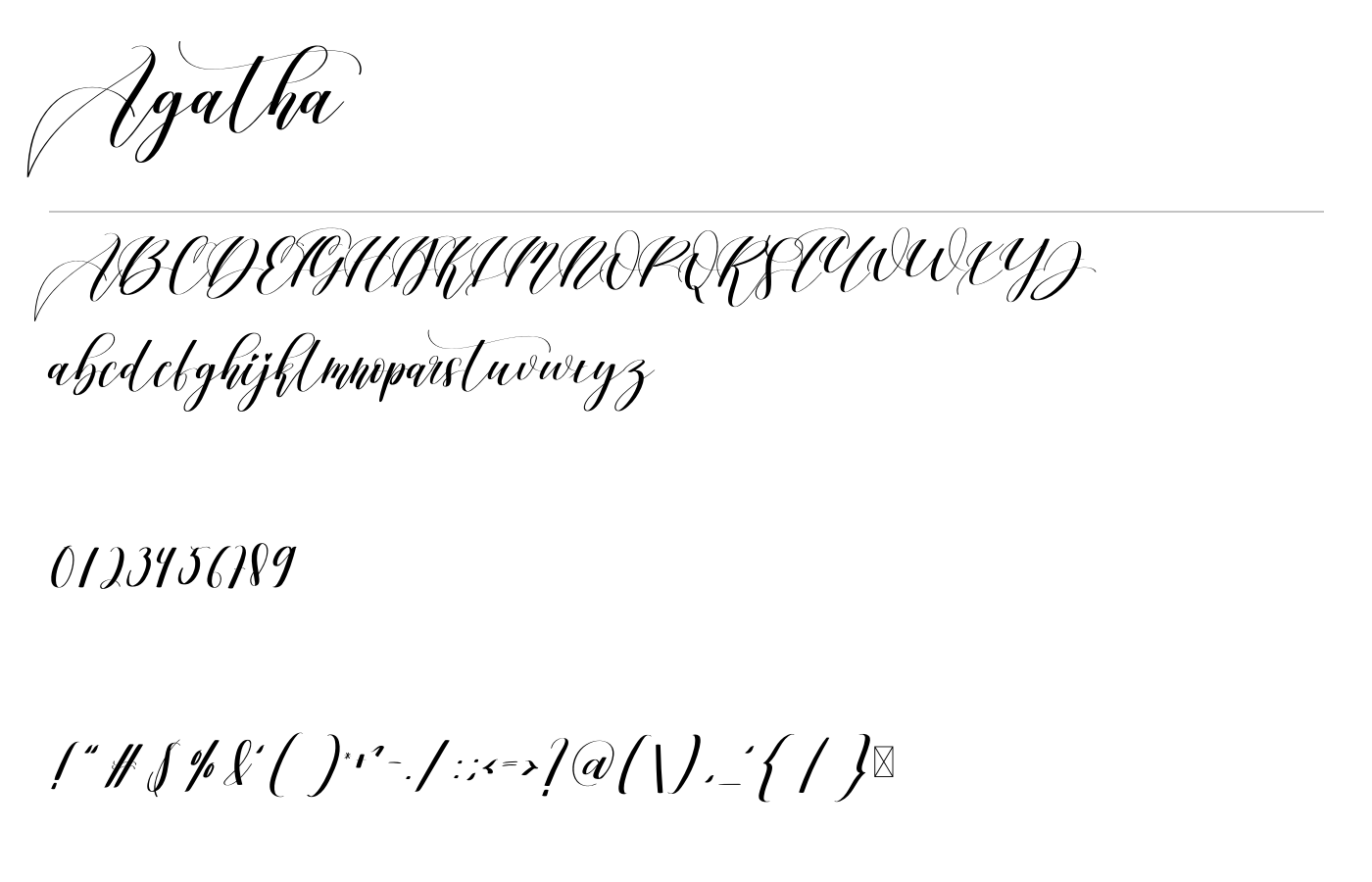
Agatha is an elegant script font characterized by its delicate and flowing strokes, featuring high contrast between thick and thin lines that create a refined, calligraphic feel. Its tall, graceful letterforms with flourishing swashes make it ideal for luxury branding, invitations, and feminine design projects where a sophisticated and stylish appearance is desired. This font shines best in headlines and decorative uses, adding a touch of timeless beauty and elegance.
Agatha Font
About Agatha Font